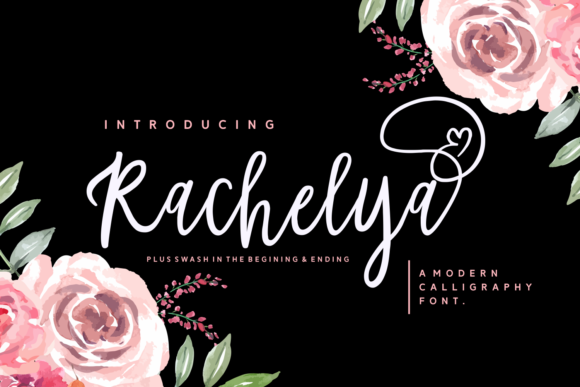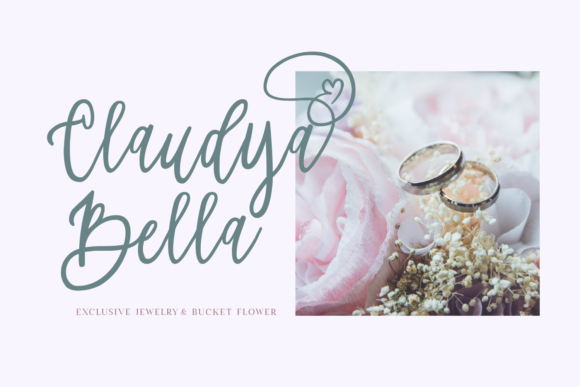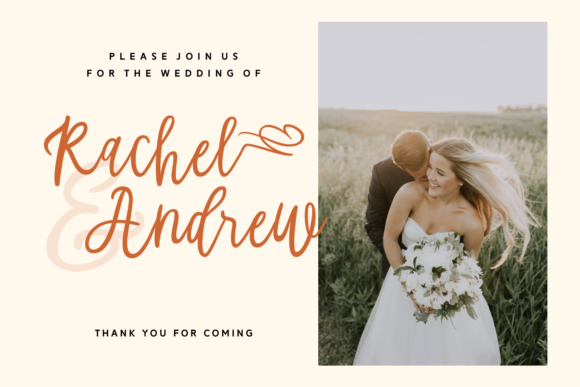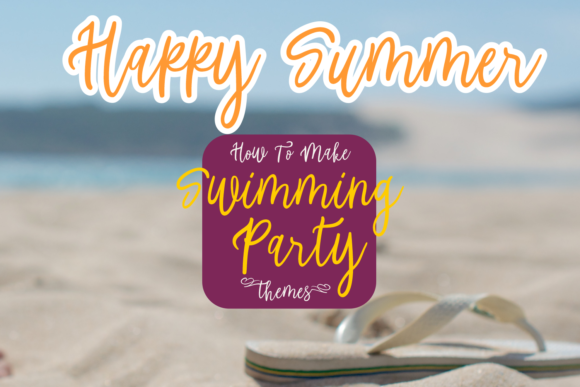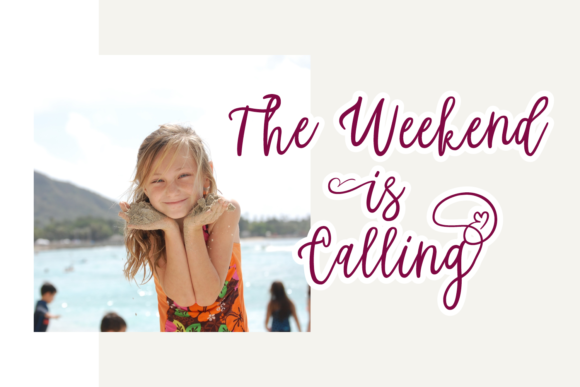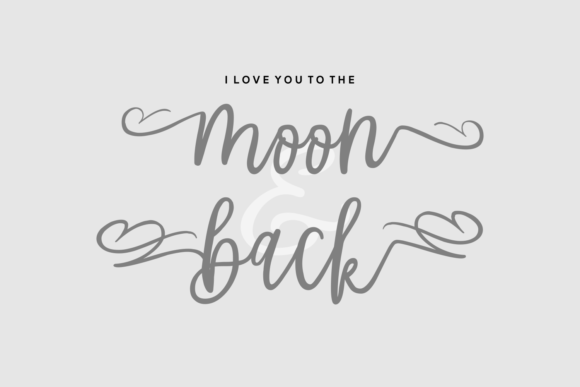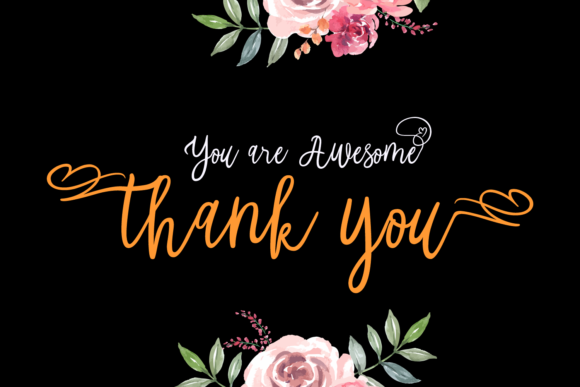
Rachelya Font
About Rachelya Font
Rachelya features sweet swashes and an irregular baseline. These features give this unique script an incredibly authentic look!